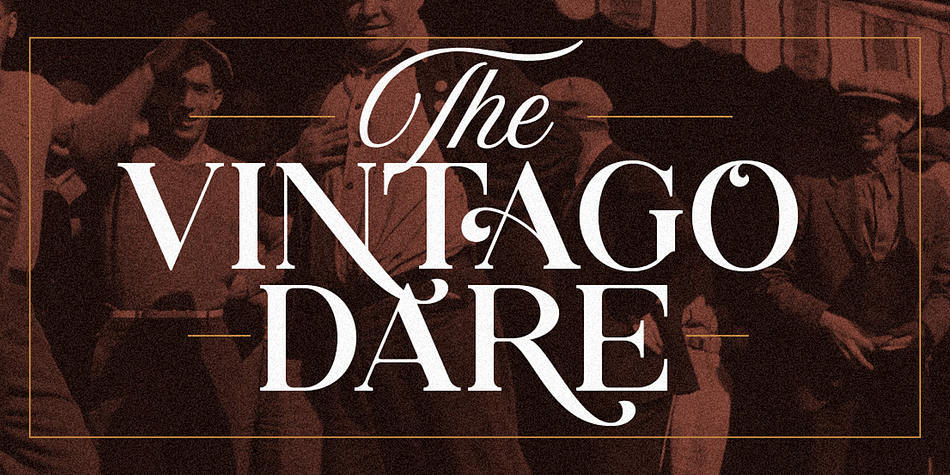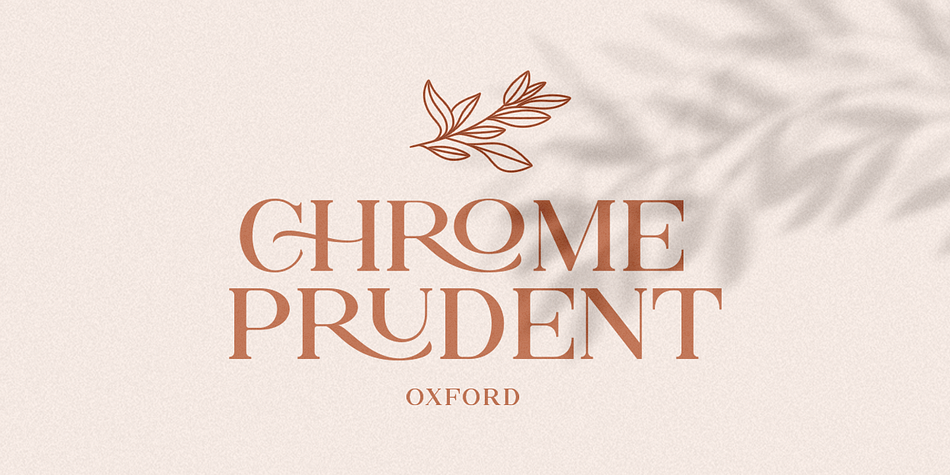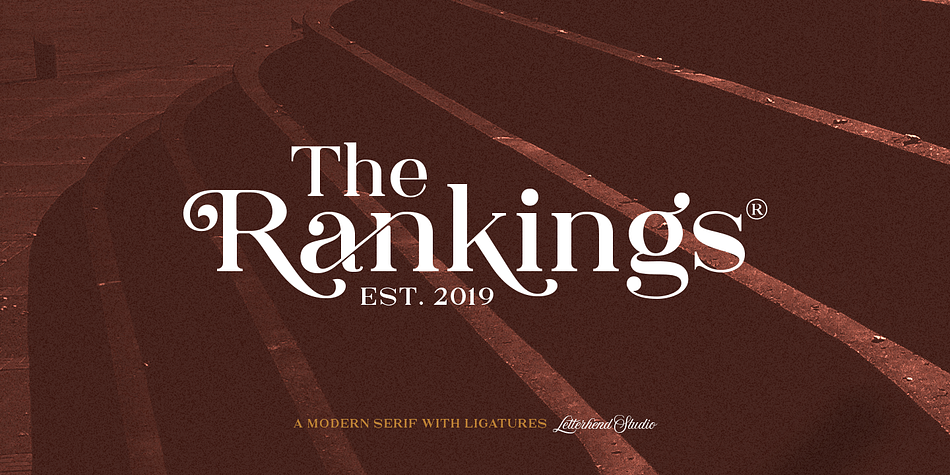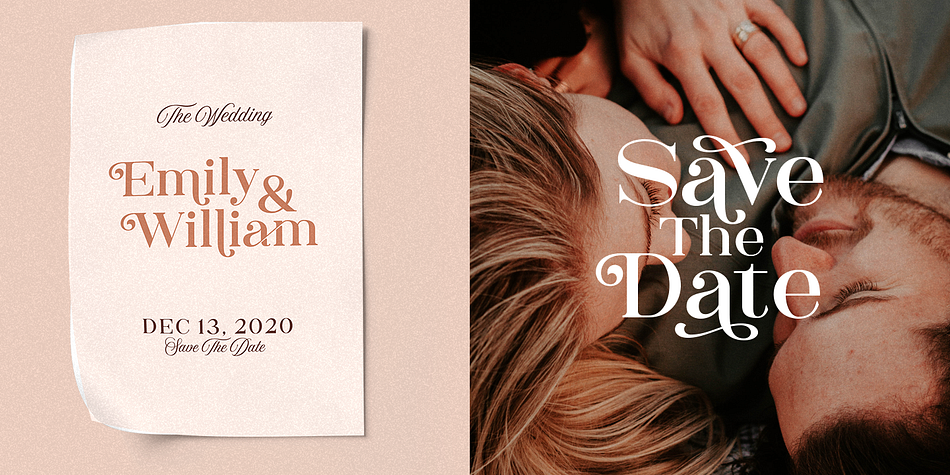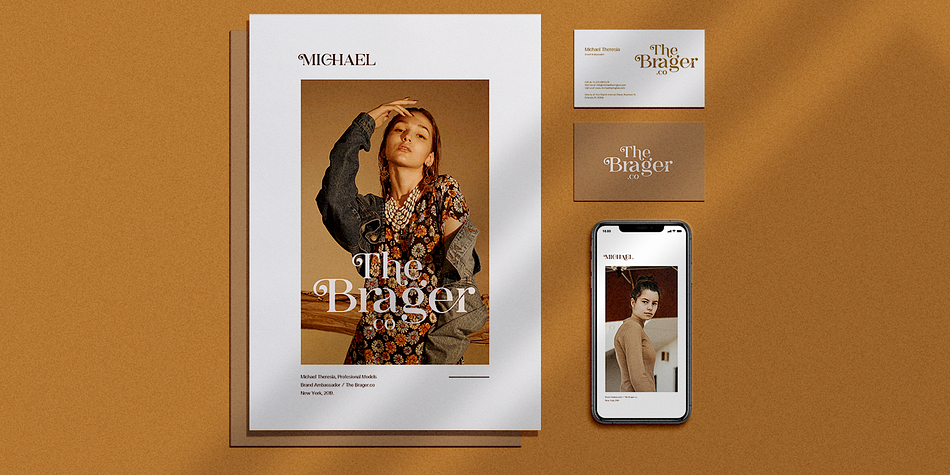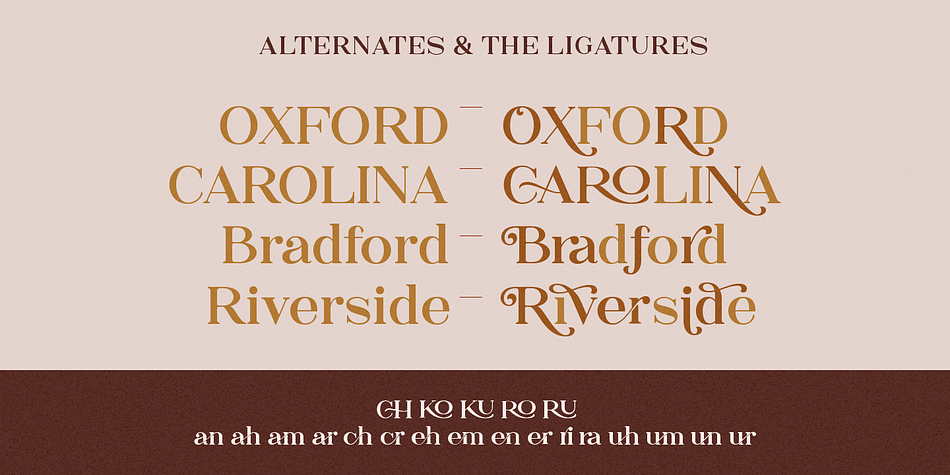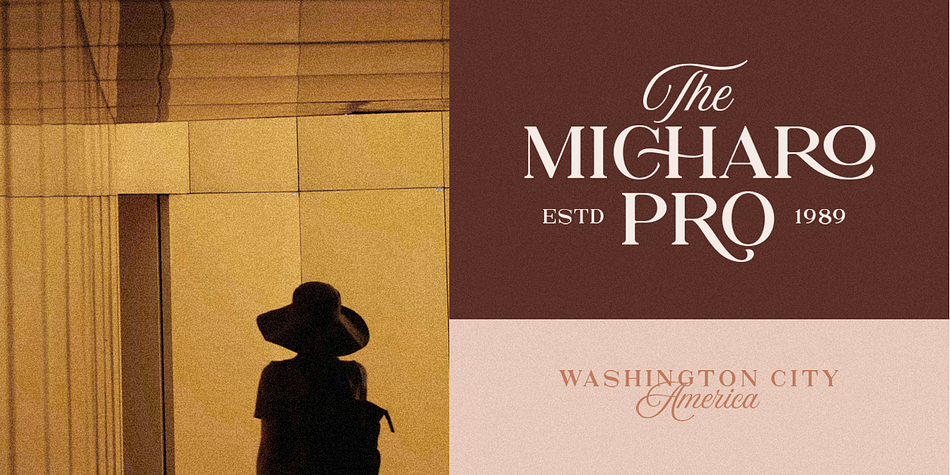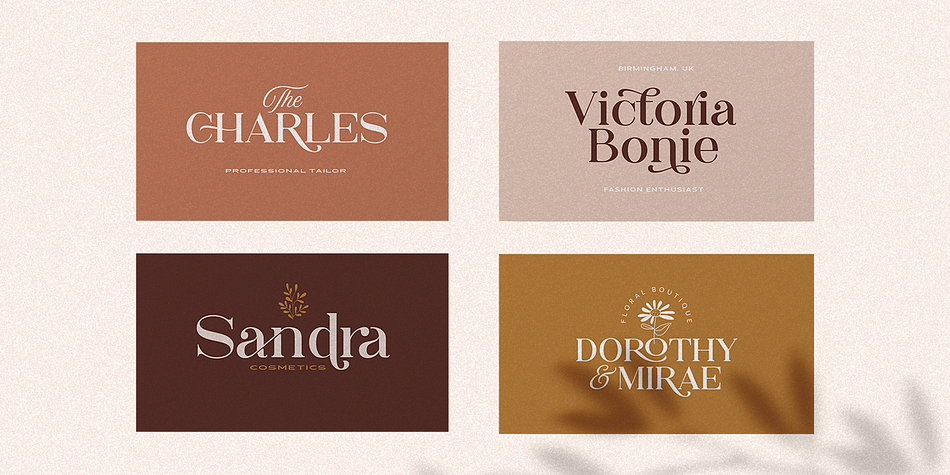
Designed by Hendry Juanda, The Rankings is a serif font published by Letterhend Studio.
Introducing, the Rankings. A luxury serif with unique alternates and swashes! This typeface has classic style yet still looks great for modern design. They works perfect for you who needs a typeface for headline, logotype, apparel, invitation, branding, packaging, advertising etc.
uppercase & lowercase
numbers and punctuation
multilingual
ligatures
alternates
swashes